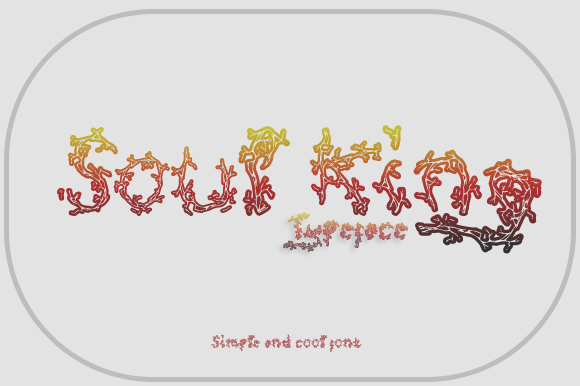
Soul King Font
Step into the realm of artistic brilliance with Soul King Font, a decorative font family that captures the essence of royalty and glamour. Crafted by the skilled hands of Gblack Id, this font transcends the ordinary, offering a visual feast that elevates your designs to new heights of sophistication.
With its captivating curves and intricate details, Soul King Font dances across the page like a symphony of elegance. Its basic punctuation adds a touch of functionality without sacrificing its aesthetic appeal, making it the perfect choice for a wide range of projects. From regal invitations to luxurious branding, Soul King Font imbues your creations with an aura of majesty and timeless beauty.
Imagine the awe-inspiring impact of Soul King Font gracing your website, social media posts, or marketing materials. Its regal presence commands attention, leaving an unforgettable impression on your audience. Whether you're a seasoned designer or just starting your creative journey, Soul King Font is the key to unlocking your full potential.